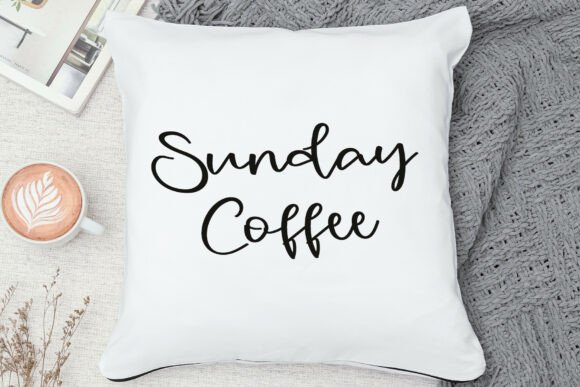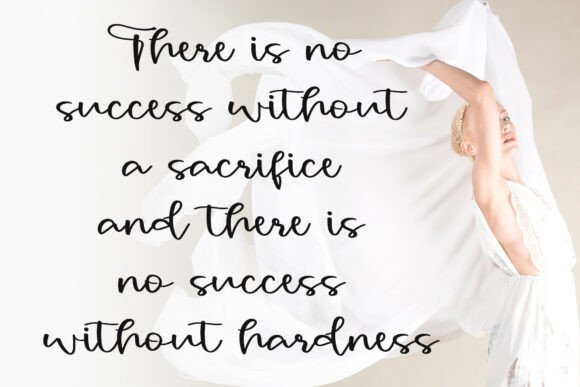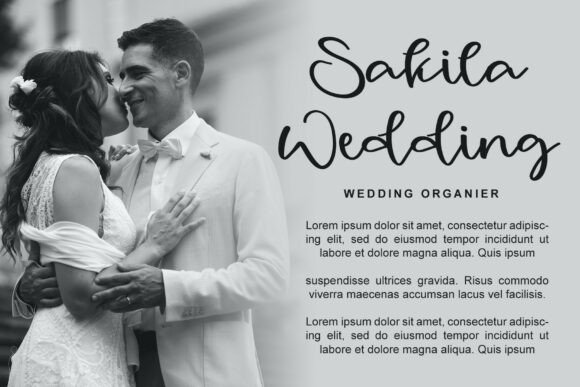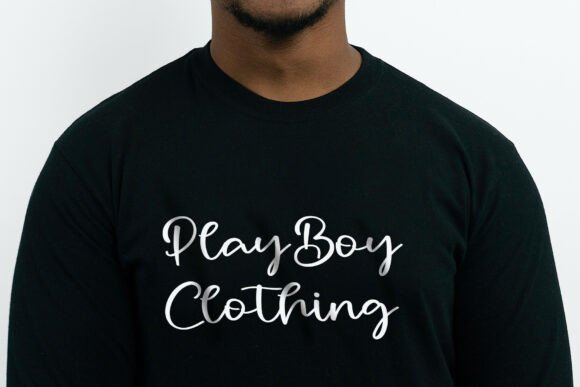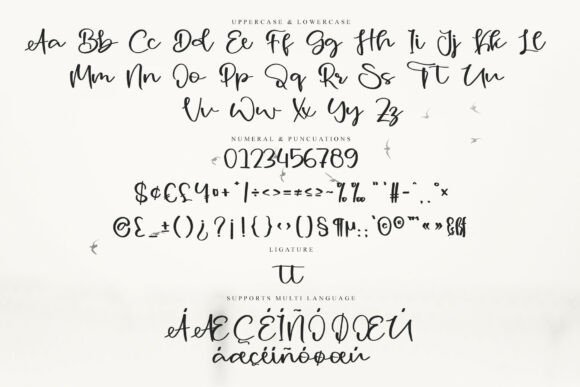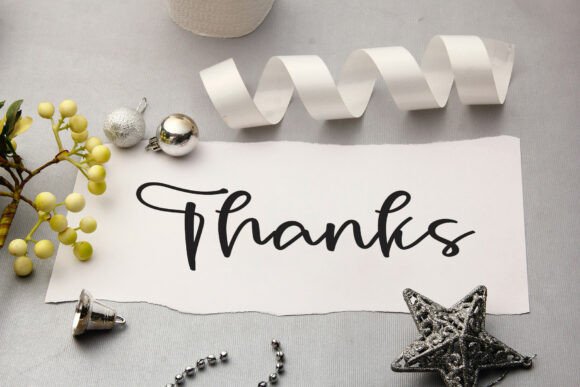
Introduction to Saturday Sunshine Font Font
Fonts play a crucial role in design, and the Saturday Sunshine Font font is a typeface that brings both character and versatility to any project. Whether you’re working on a branding project, a website, or a print design, the Saturday Sunshine Font font offers a unique style that can elevate your work.
Saturday Sunshine is a stylish and dainty script font.
It is suitable for any projects such as : logos, branding projects, label, photography, watermark, special events, and all your other lovely projects that need a beautiful script taste This font is PUA encoded which means you can access all of the glyphs and swashes with ease.
The Saturday Sunshine Font font is more than just a typeface – it’s a design tool that helps you communicate your message with style and clarity. Its unique character set and versatile design make it suitable for a wide range of applications, from elegant invitations to bold headlines.
With its carefully crafted letterforms and balanced proportions, the Saturday Sunshine Font font ensures readability and visual appeal across all mediums.
The Saturday Sunshine Font font stands out with its unique design, exceptional readability, and versatility across various design applications.